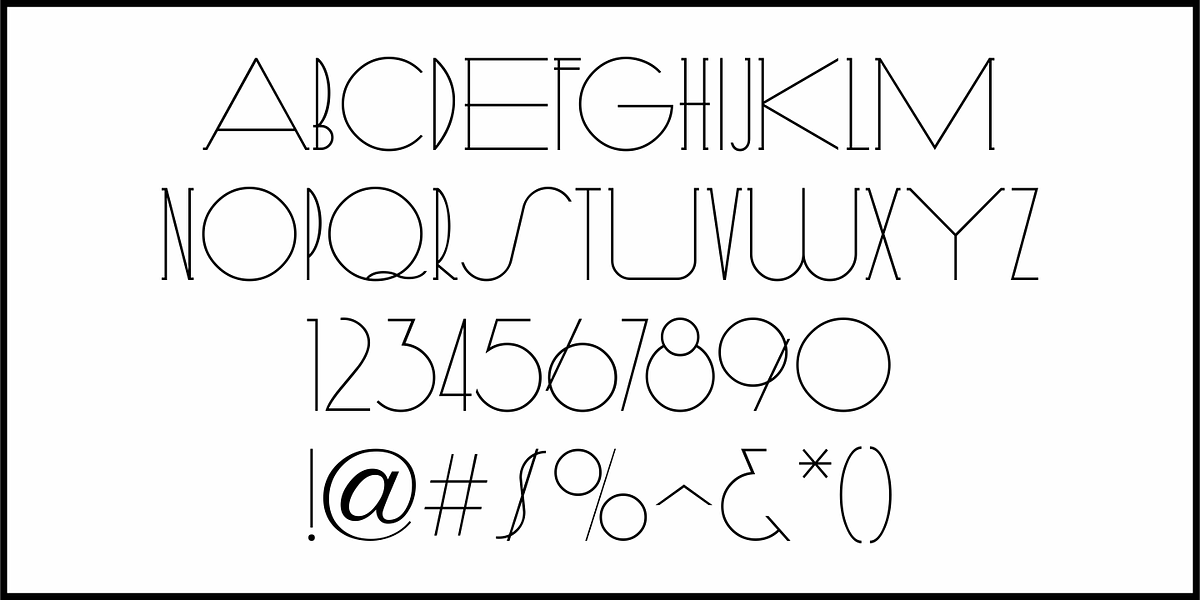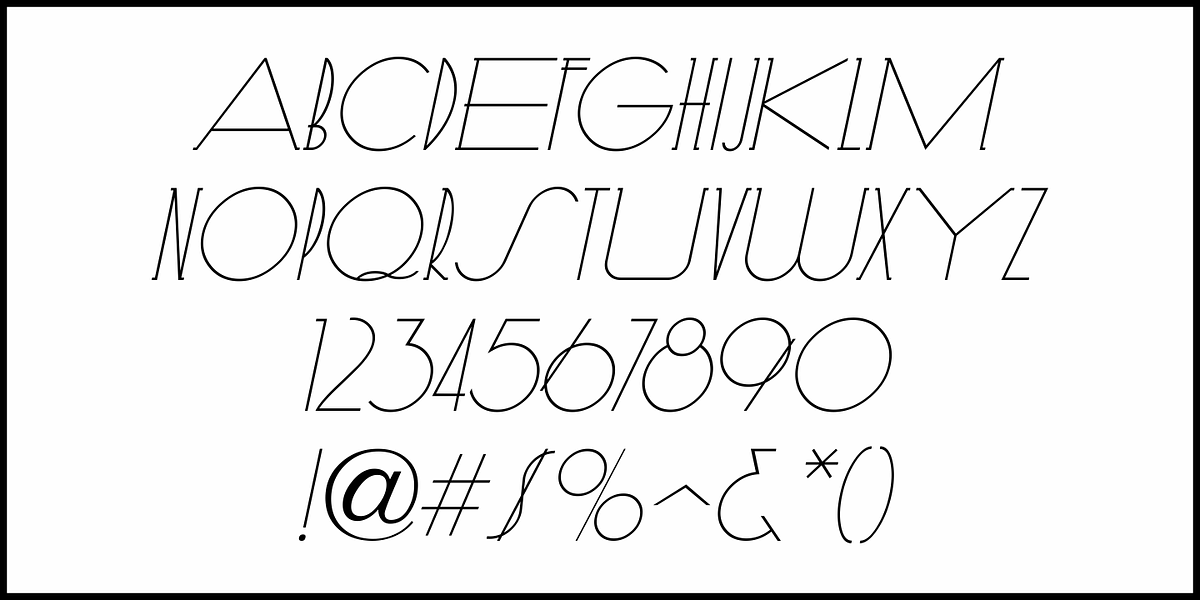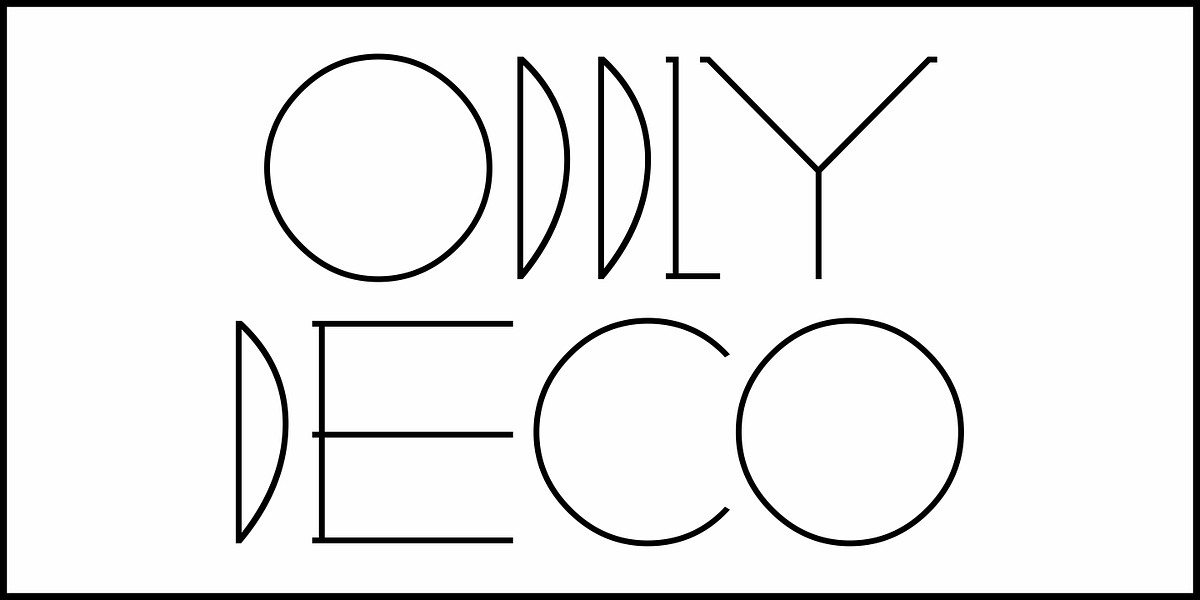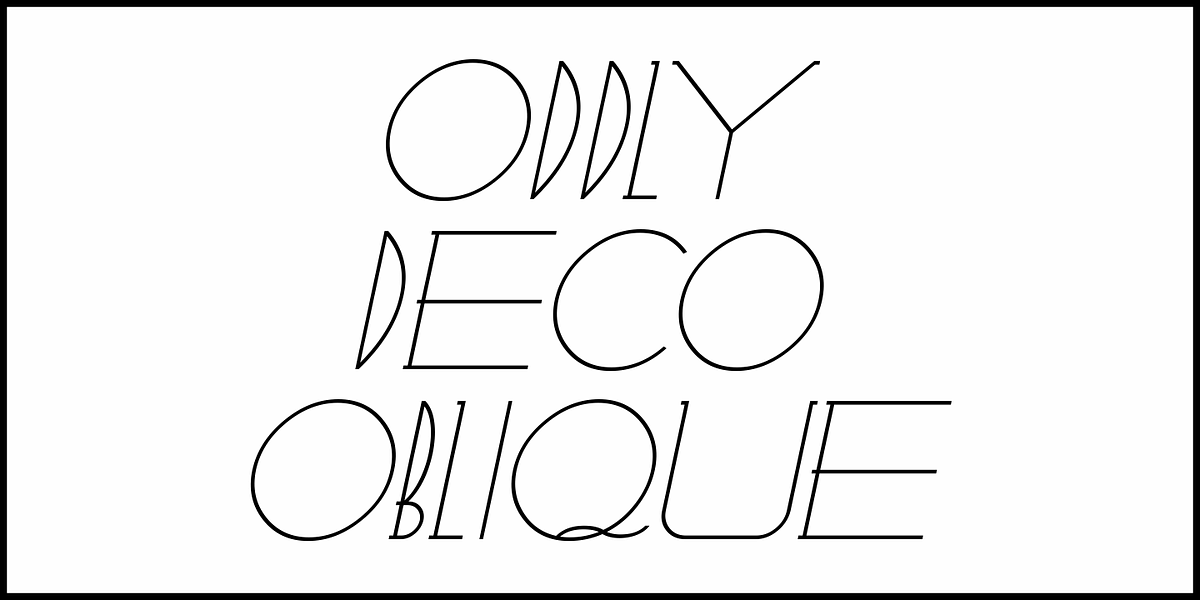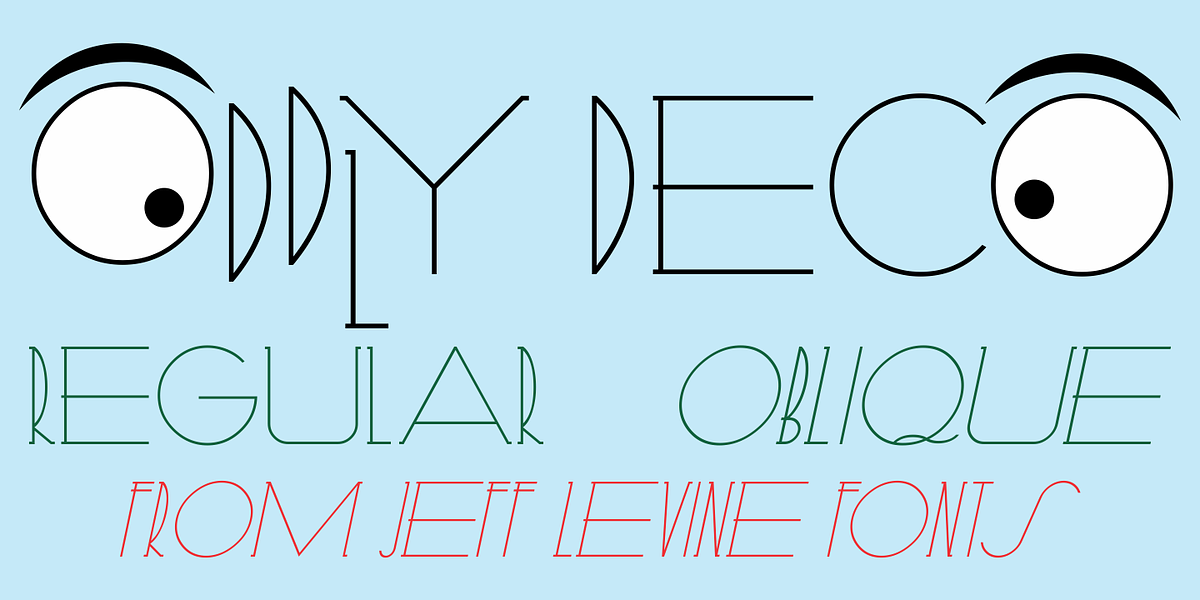
Oddly Deco JNL
A quirky and unusual Art Deco monoline typeface can be found within the pages of the Esterbrook Drawlet Pen instruction book [circa the 1940s]. Drawlet was the direct competitor to Speedball Lettering pen nibs.
This unusual type design of varying width and character shapes is now available digitally as Oddly Deco JNL, in both regular and oblique versions.